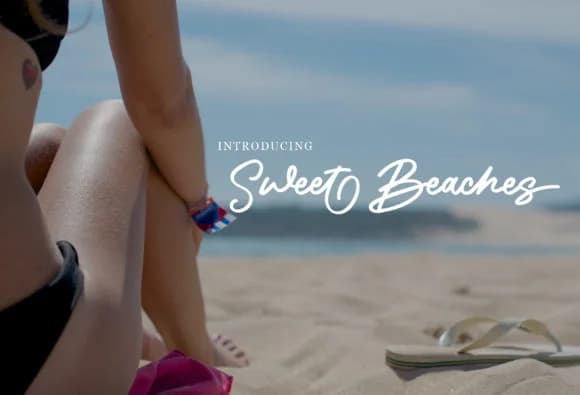
Sweet Beaches by Eifets is an elegant handwritten script that brings refined personality to a range of creative projects. The flowing letterforms work wonderfully for luxury wedding invitations, boutique cosmetics packaging, and upscale brand identity systems. Beyond its graceful aesthetic, Sweet Beaches excels at personalized greeting cards, feminine lifestyle branding, and artisanal product labels that demand a touch of sophistication. Whether you're designing custom stationery for a high-end event or crafting the visual language for an independent beauty label, this script font adapts beautifully across digital and print applications. The letterforms maintain legibility while conveying an approachable elegance that resonates with modern audiences seeking a more human, handcrafted feel. Its versatility extends to social media graphics for luxury brands, event signage for boutique venues, and packaging design that commands attention through understated refinement. Sweet Beaches works exceptionally well when you need to balance visual refinement with authentic personality, capturing the essence of handwritten elegance without sacrificing readability. The fluid nature of each glyph makes it particularly suited to scripts, quotes, and typography-forward designs where every letter matters. Whether applied to high-end stationery suites or carefully curated digital branding, this font brings intentionality and polish to professional creative work. Add Sweet Beaches to your Creative Fabrica library and enhance your next sophisticated design project.
- Elegant, Flowing, Sweet Beaches
Sweet Beaches Font is a script font that shines as a display or heading face. Pair it with a clean sans-serif or serif font for body text β the contrast creates a clear hierarchy while the two styles stay balanced and easy to read.
Sweet Beaches Font